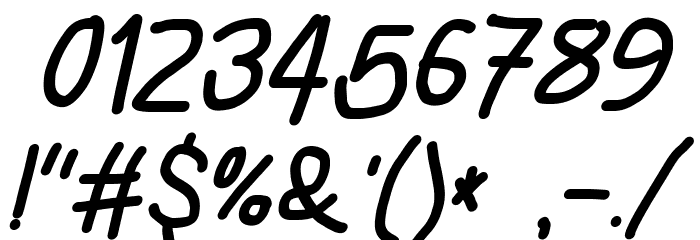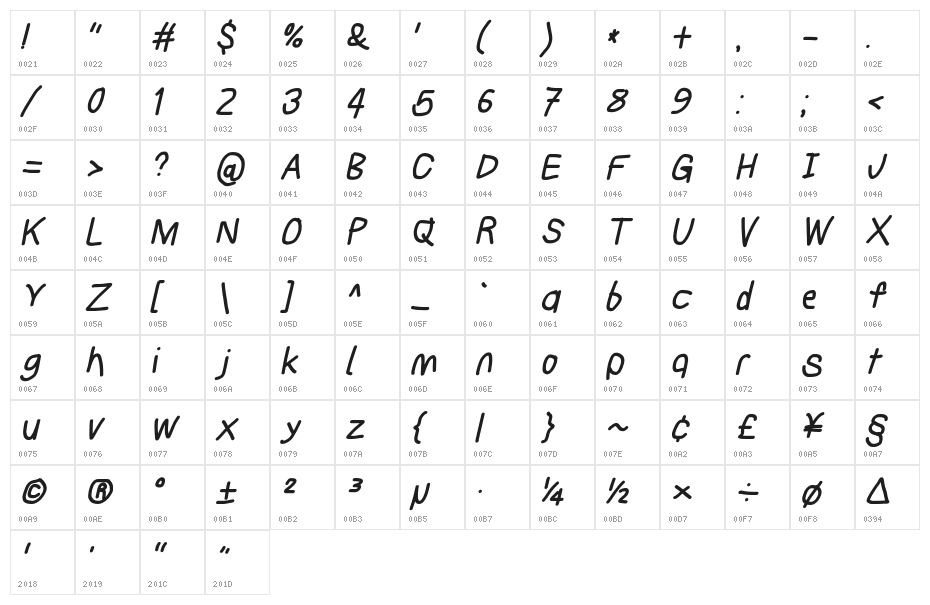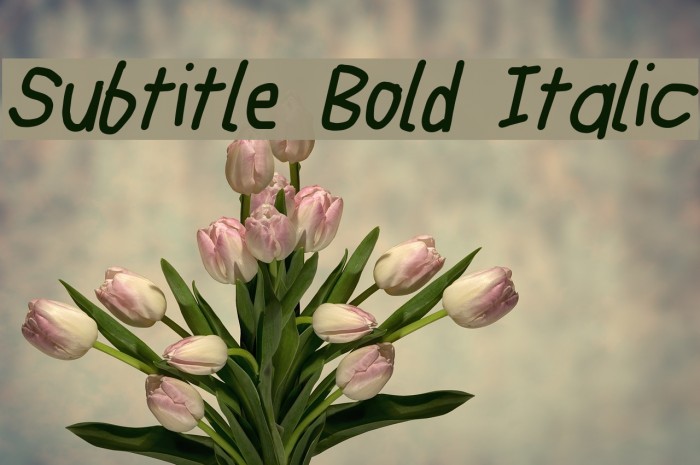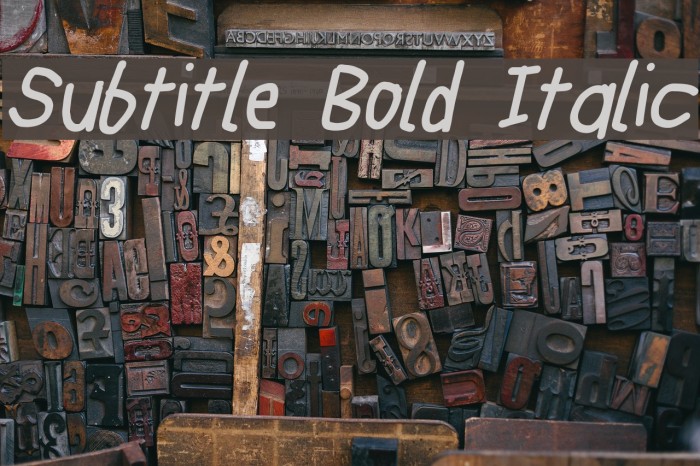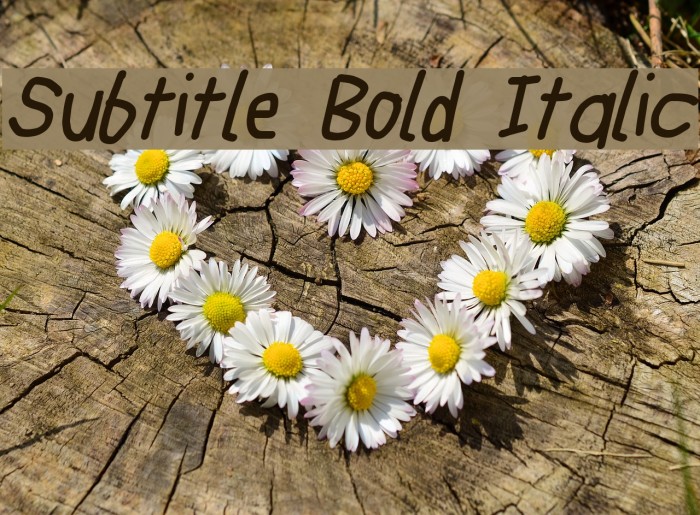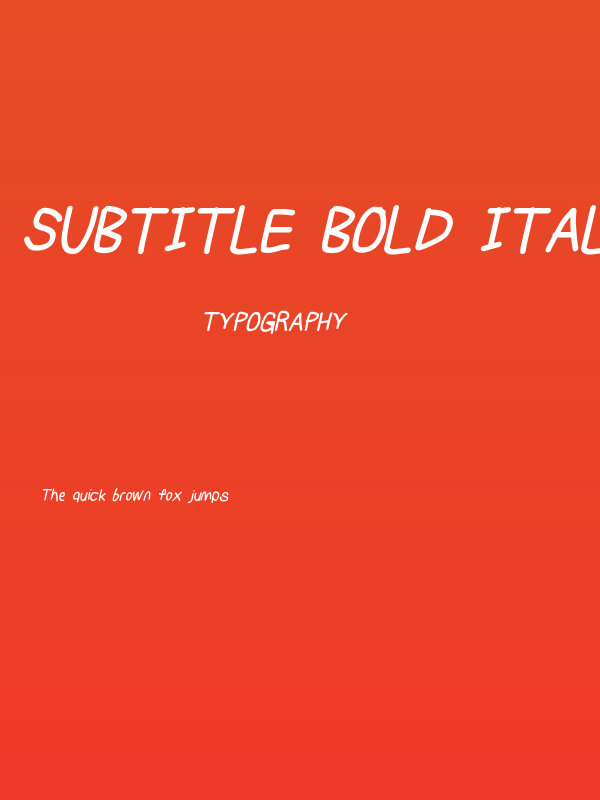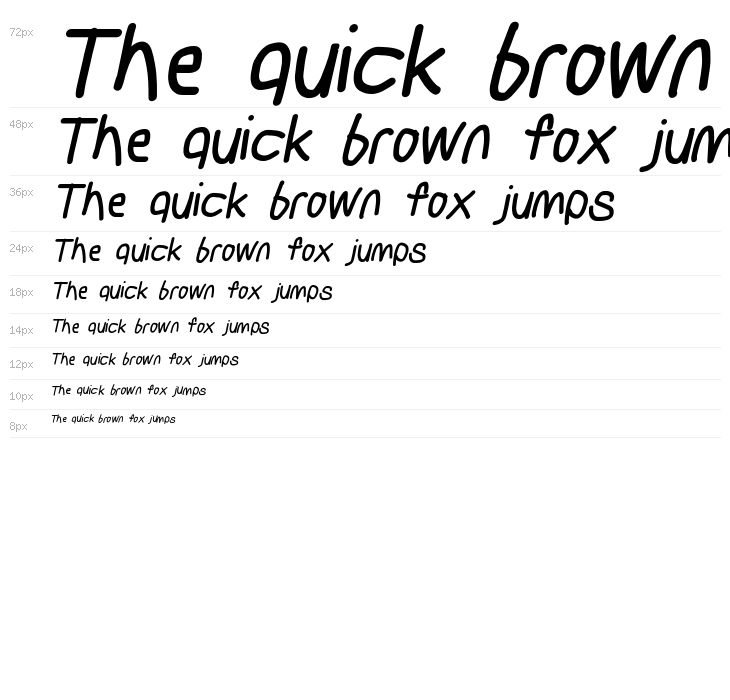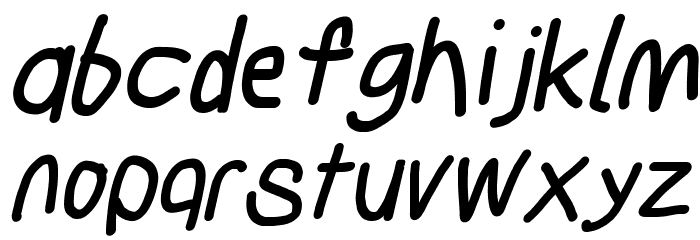
Subtitle Bold Italic Font
Subtitle Bold Italic Description
This font exhibits a playful and informal style, characterized by its handwritten appearance. The letters are slightly slanted, giving it an italic feel, while the strokes are bold, ensuring visibility and impact. The characters are rounded with a smooth flow, maintaining a consistent thickness throughout, which contributes to its casual and approachable look. The spacing between characters is relatively tight, enhancing its compact and cohesive appearance. This font is versatile, suitable for projects that require a friendly and engaging tone.